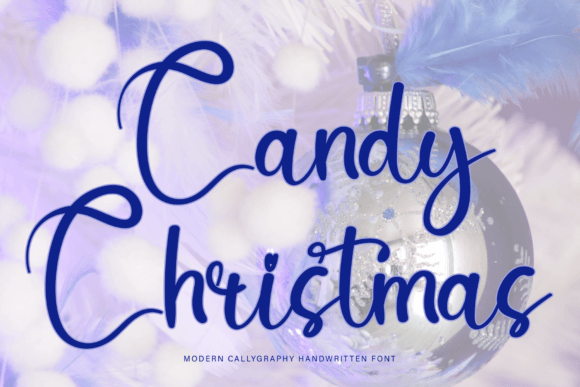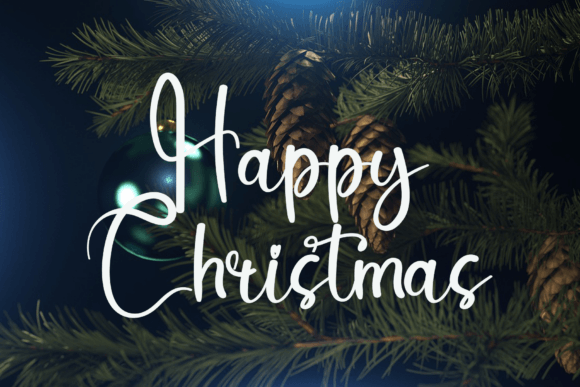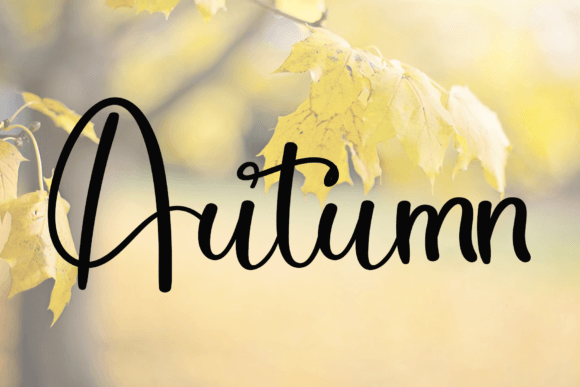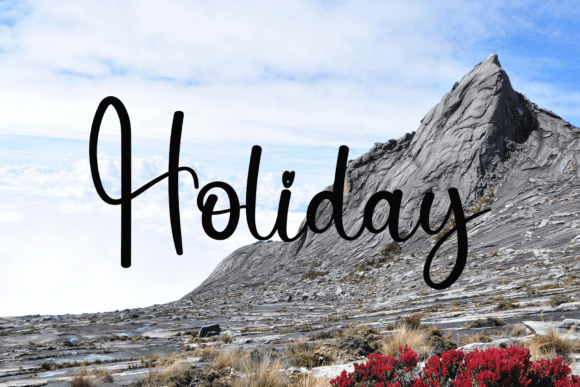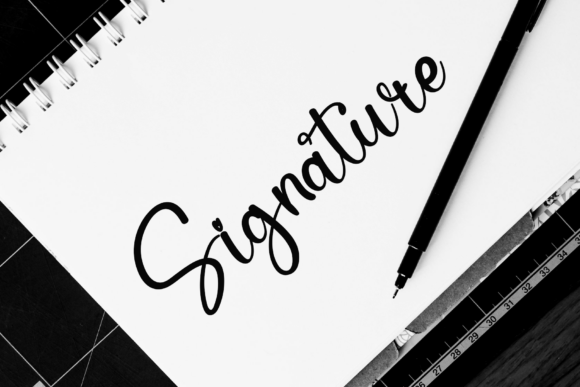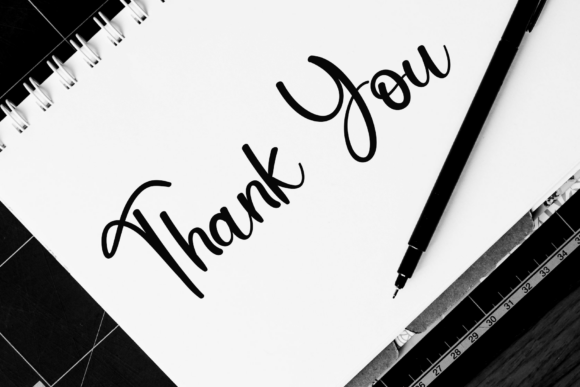
Deck the Halls with the Perfect Font
As a designer, there’s nothing quite like the rush of finding the perfect font for a project. You’re scrolling through your go-to font libraries, and suddenly, it hits you – that one font that makes your design come alive. For me, it was the moment I discovered the Candy Christmas Font, and I just knew I had to share it with the world.
The Candy Christmas Font is a delightful, thin-lettered script font that’s perfect for adding a touch of whimsy and elegance to your designs. Whether you’re creating gorgeous wedding invitations, beautiful stationery art, or eye-catching social media posts, this font is sure to make your work stand out. As a designer, you know how valuable it is to have a versatile font that can elevate your designs and make them truly special.
Candy Christmas Font Key Features
- Font Type: A decorative, festive font designed specifically for the holiday season.
- Unique Characteristics: Features intricate, hand-drawn designs and ornaments that evoke a sense of nostalgia and festive cheer.
Candy Christmas Font Review
I recently had the chance to work with the Candy Christmas Font, and I must say it’s a sweet addition to any holiday design project ✨. The font’s playful, cursive script is reminiscent of traditional handwritten notes, but with a modern twist that’s sure to catch the eye. The font’s various weights and styles allow for endless customization options, making it perfect for creating eye-catching holiday cards, gift tags, or social media posts.
The Candy Christmas Font’s versatility is one of its greatest strengths. It can be used for both formal and informal designs, and its festive flair makes it perfect for holiday-themed projects ✨. Additionally, the font is highly legible, even at small sizes, which is a must for digital designs.
While the Candy Christmas Font is a great addition to any design project, there are a few limitations to be aware of ⚠️:
- Some characters may not be as detailed or ornate as others, which can make the font look inconsistent in certain contexts.
- The font may not be suitable for body text, as its cursive script can be difficult to read at large sizes.
- Some users may find the font’s playfulness to be over-the-top or too kitschy, which can detract from the overall design.
Overall, the Candy Christmas Font is a great choice for designers looking to add a touch of holiday cheer to their projects ✨. While it may have some limitations, its versatility and playfulness make it a valuable addition to any designer’s toolkit. With a little creativity and restraint, the Candy Christmas Font can help create truly memorable holiday designs.
The Candy Christmas Font is perfect for creating festive holiday designs, such as Christmas cards, gift tags, and invitations.
For the most effective use, pair the font with bright, bold colors and playful graphics to create a fun and festive atmosphere.
Experiment with different font sizes, colors, and styles to create unique and eye-catching designs.